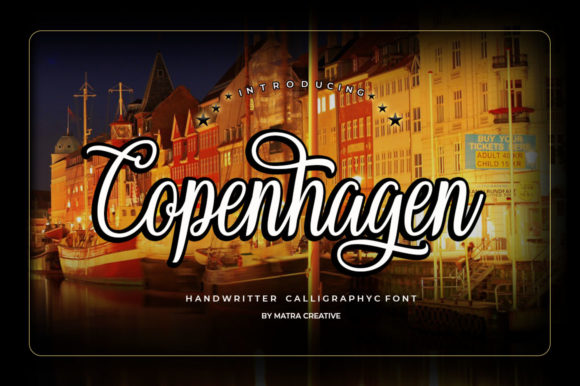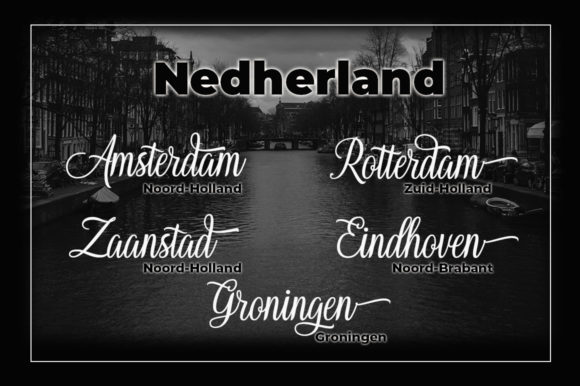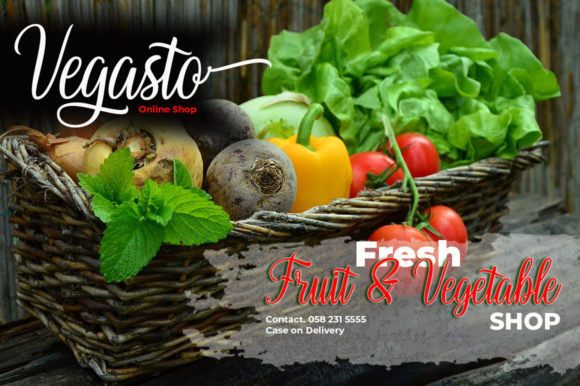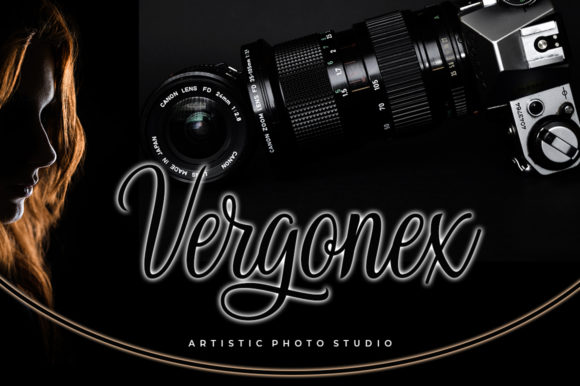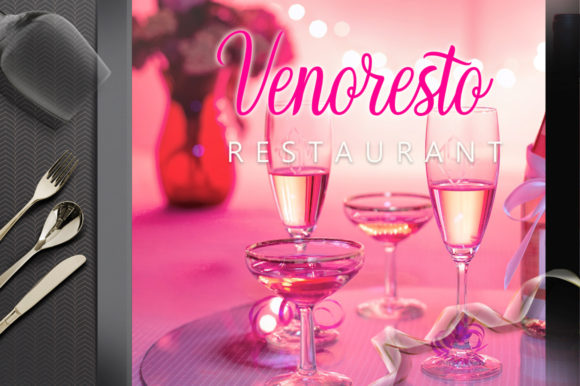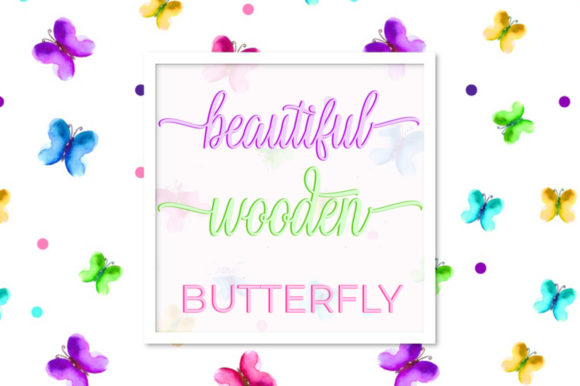
Copenhagen Font
About Copenhagen Font
Meet The Copenhagen, a captivating handwritten brush font meticulously crafted to capture the essence of real handwriting. Designed to infuse your typography with excitement and beauty, this font transforms text into a dynamic and visually appealing work of art. The hand-lettered aesthetic introduces a genuine human touch, enriched with a multitude of loving details.
One of the distinctive features of The Copenhagen lies in its abundance of alternates, providing you with the flexibility to construct your text with the delightful imperfections and variations reminiscent of authentic handwriting. This unique characteristic enables you to create a text that feels personal, organic, and full of character, echoing the charm of genuine penmanship.
The Copenhagen is not just a font; it’s a versatile tool that finds its perfect home in a variety of creative applications. Its handwritten charm makes it an excellent choice for fashion-related projects, adding a trendy and personalized touch. E-commerce brands can leverage its unique appeal to stand out and make a memorable impression on customers.
For trend blogs, The Copenhagen serves as an ideal companion, enhancing the overall aesthetic and making content visually engaging. Wedding boutiques can elevate their branding with this font, infusing invitations, signage, and promotional materials with an upscale and chic vibe.
Businesses aiming for a sophisticated and stylish image will find The Copenhagen to be a valuable asset. Its ability to convey a handwritten, personal feel sets it apart, making it a powerful choice for those who want to communicate authenticity and connection with their audience.
In summary, The Copenhagen is more than just a font; it’s a design tool that brings the warmth and character of real handwriting to your projects. Embrace the charm of imperfections and variations, and let The Copenhagen add a touch of authenticity and elegance to your fashion, e-commerce, blog, wedding, or upscale business endeavors.